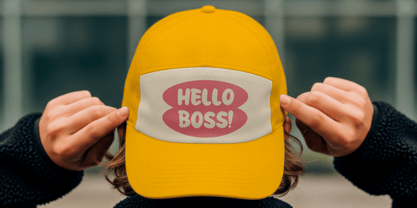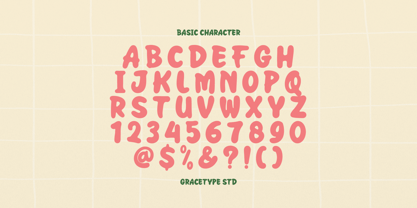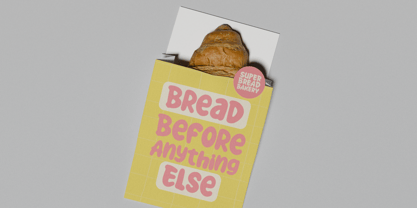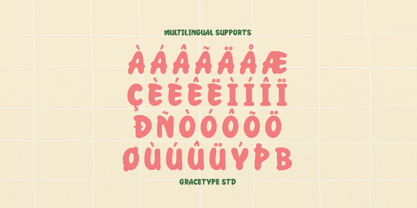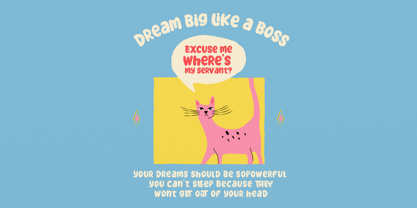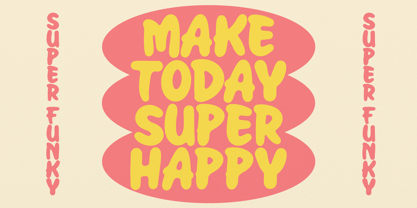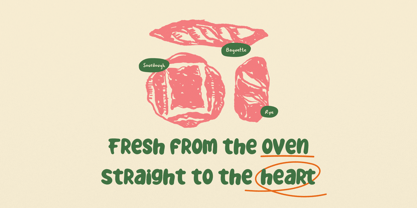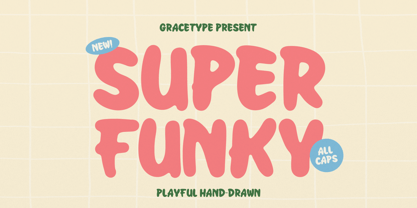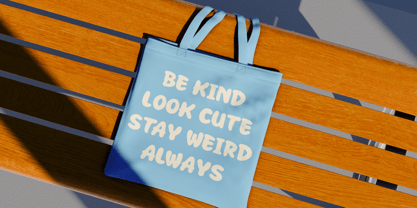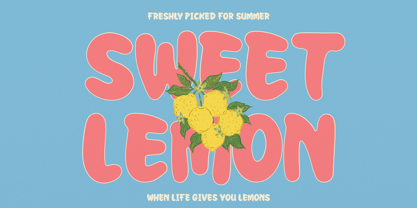
Super Funky
Super Funky | Playful Hand Drawn, from Gracetypestudio, suitable for any projects such as: logos, branding projects, homeware designs, product packaging, mugs, quotes, posters, shopping bags, t-shirts, book covers, name card, invitation cards, greeting cards, label, photography, watermark, special events, and all your other lovely projects that need a Hand Drawn taste.